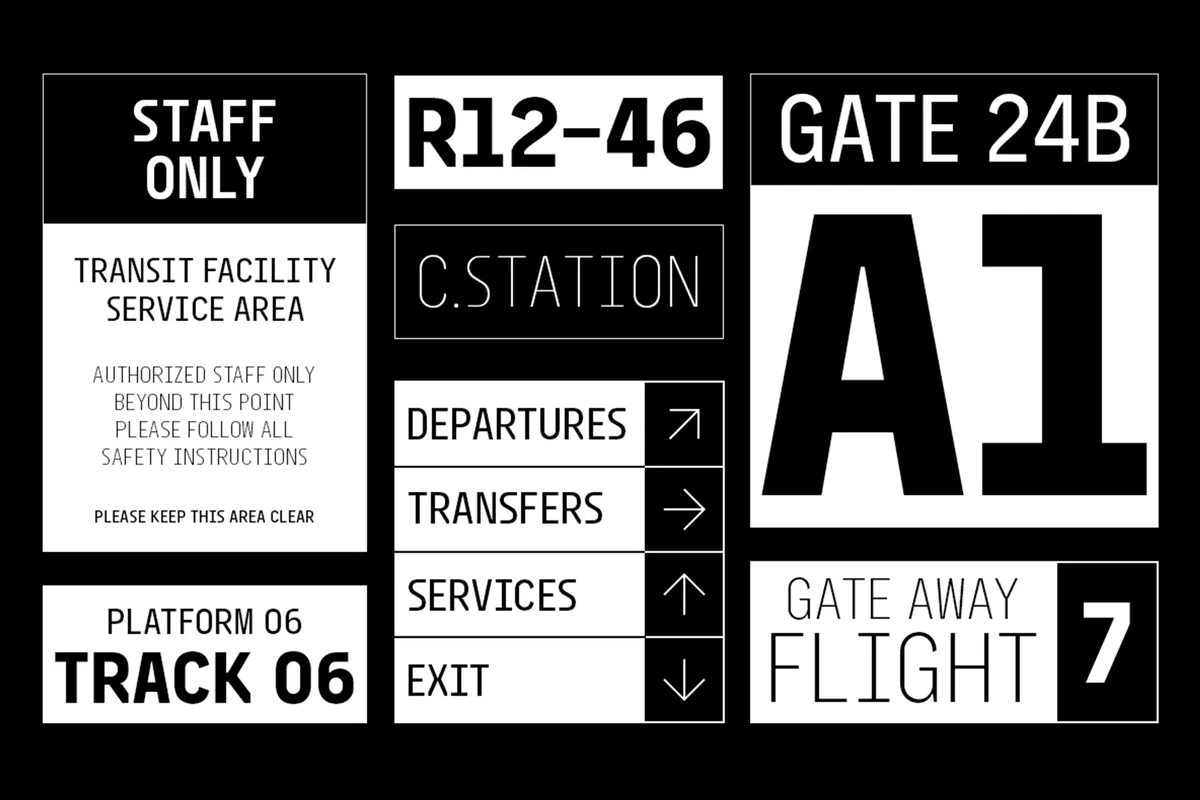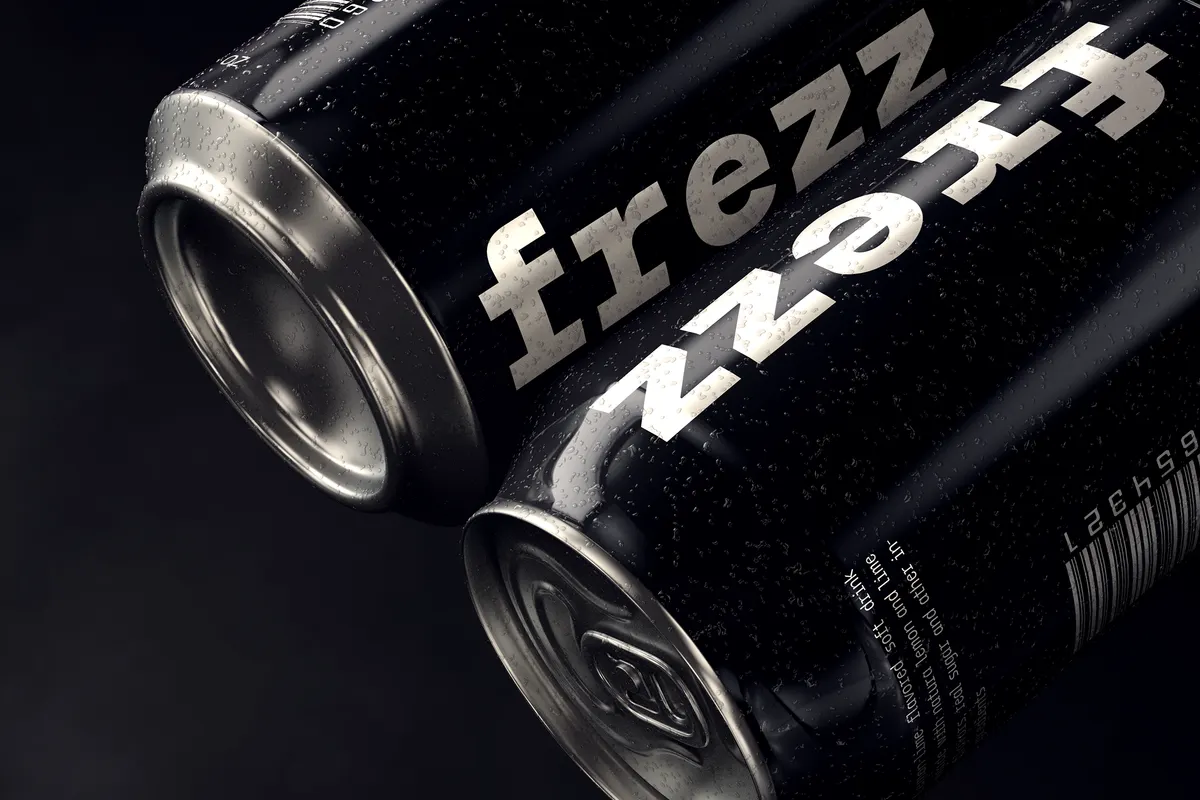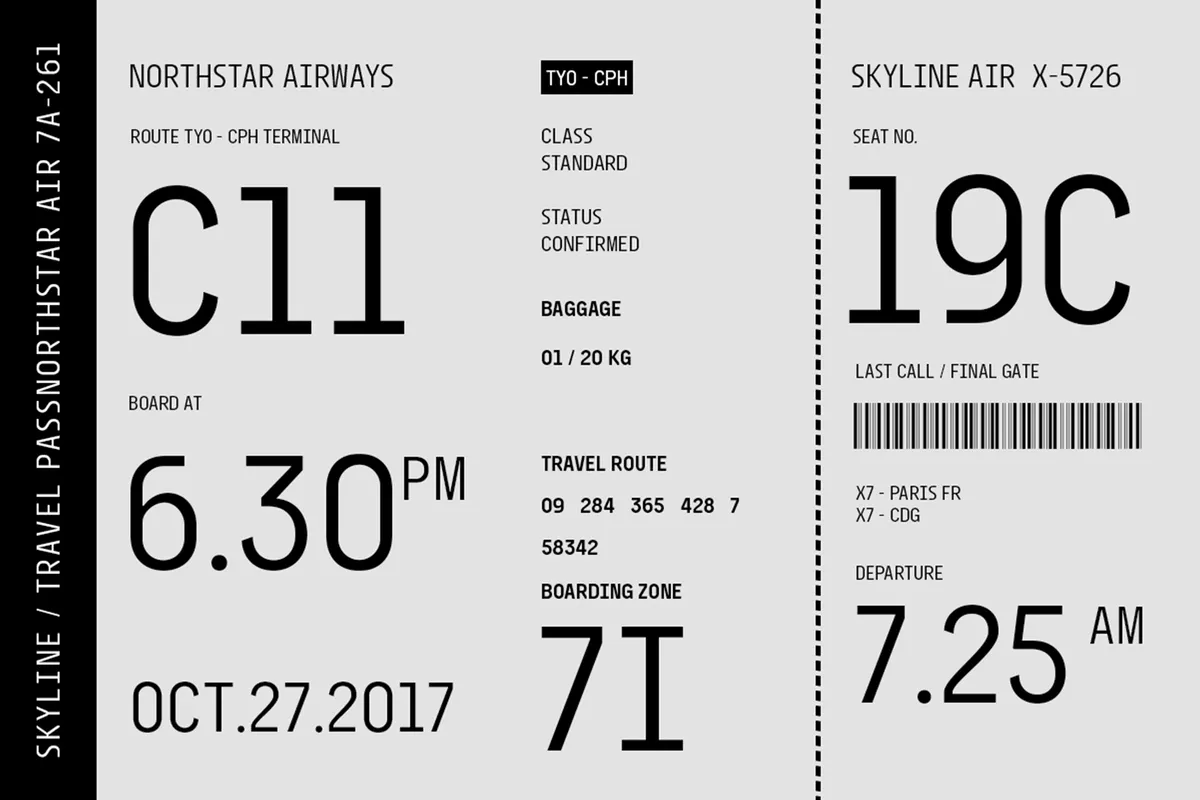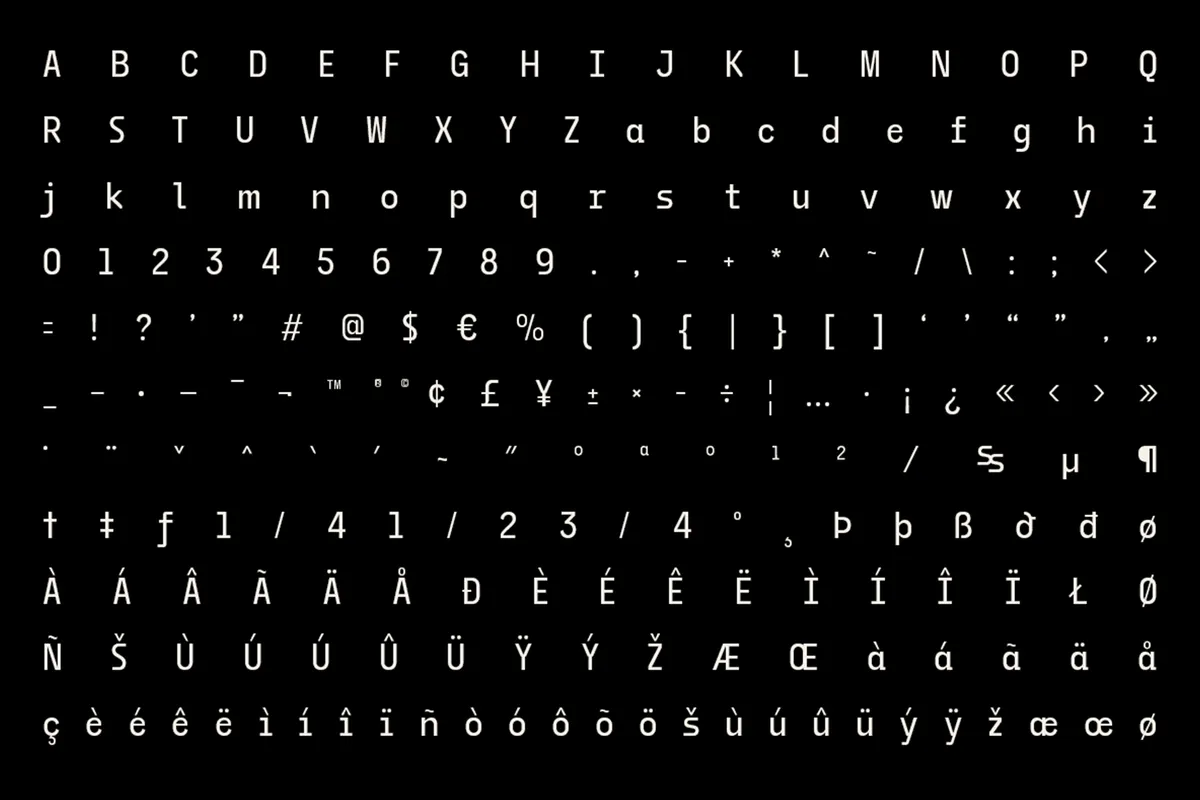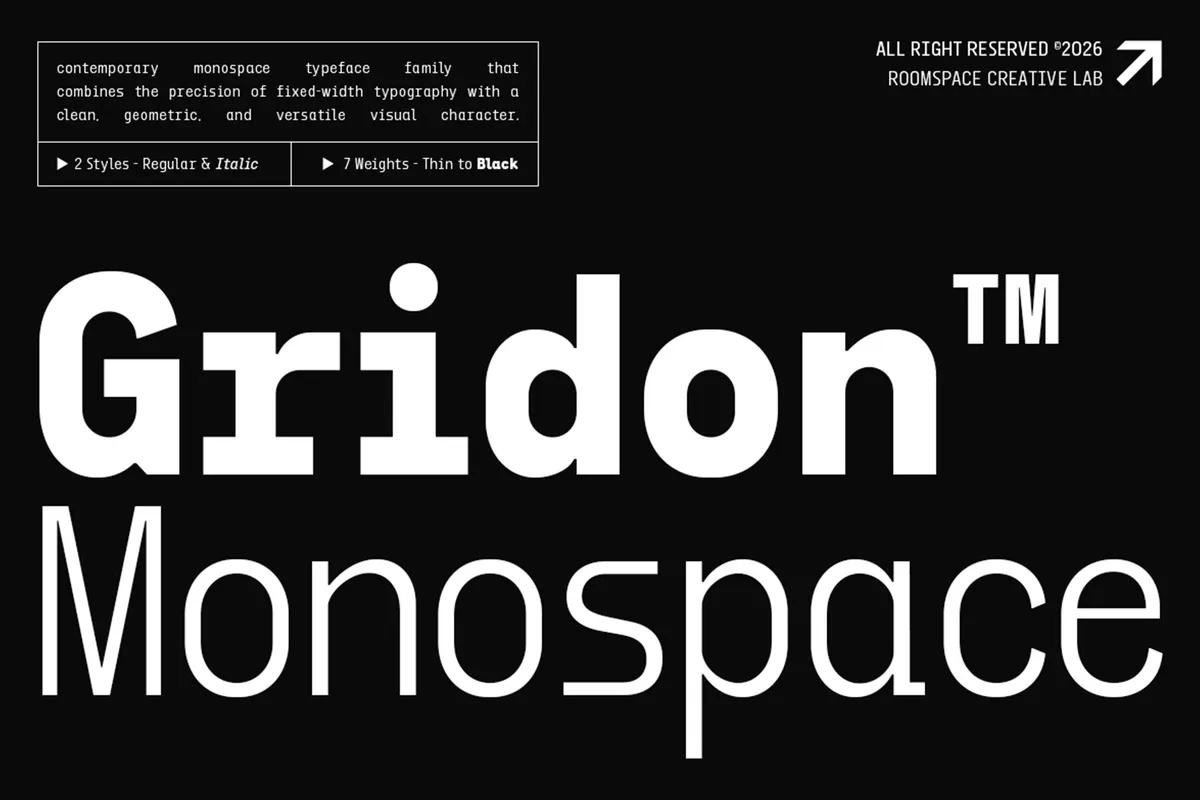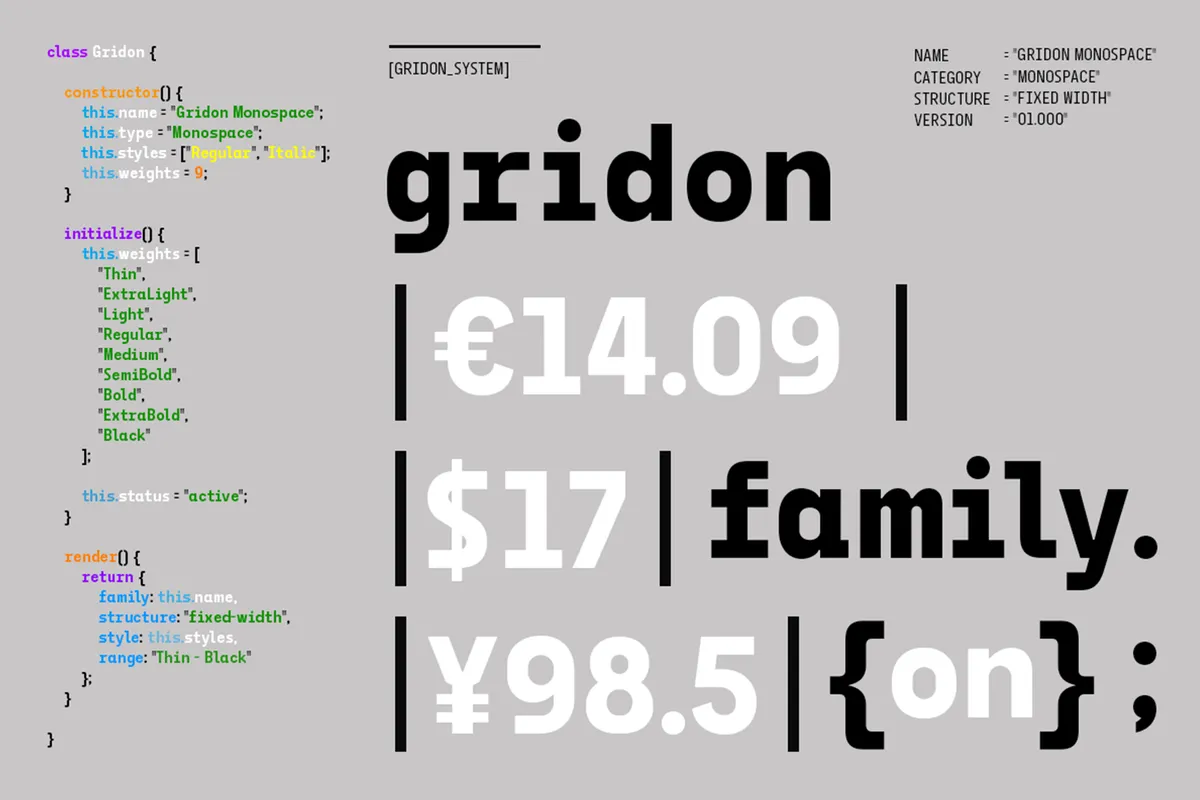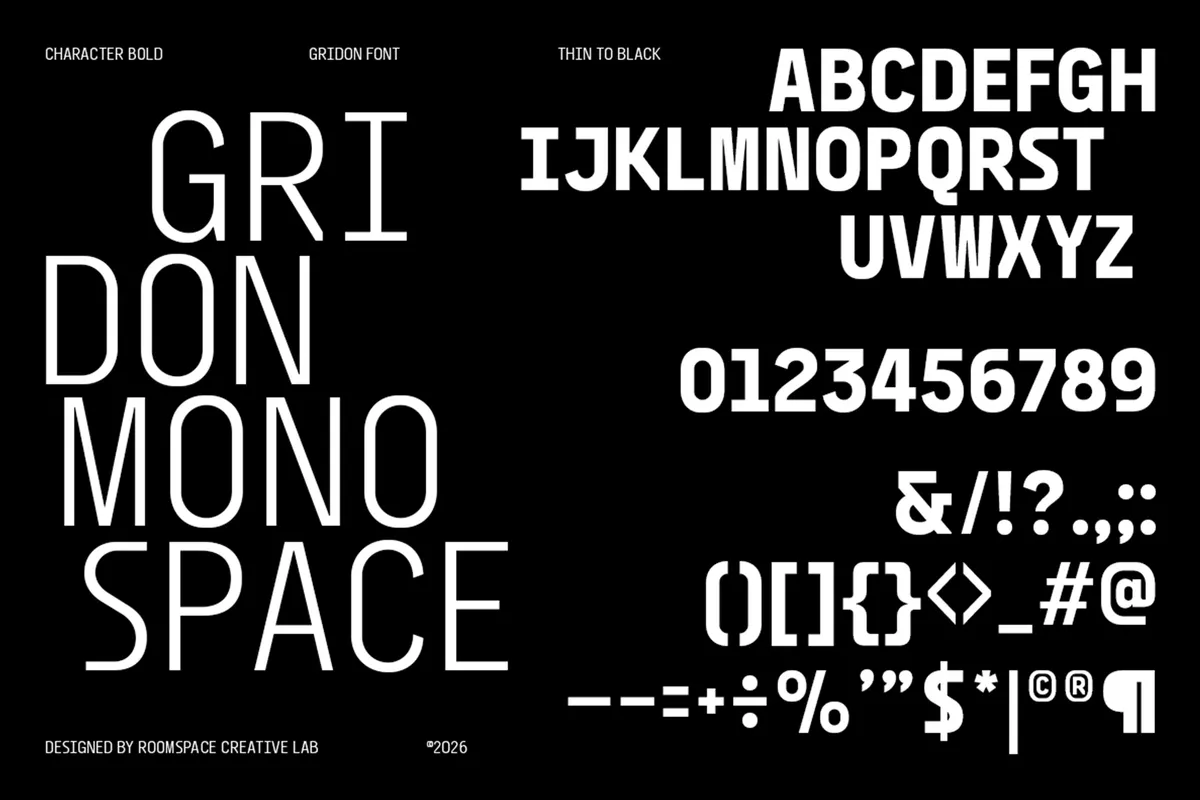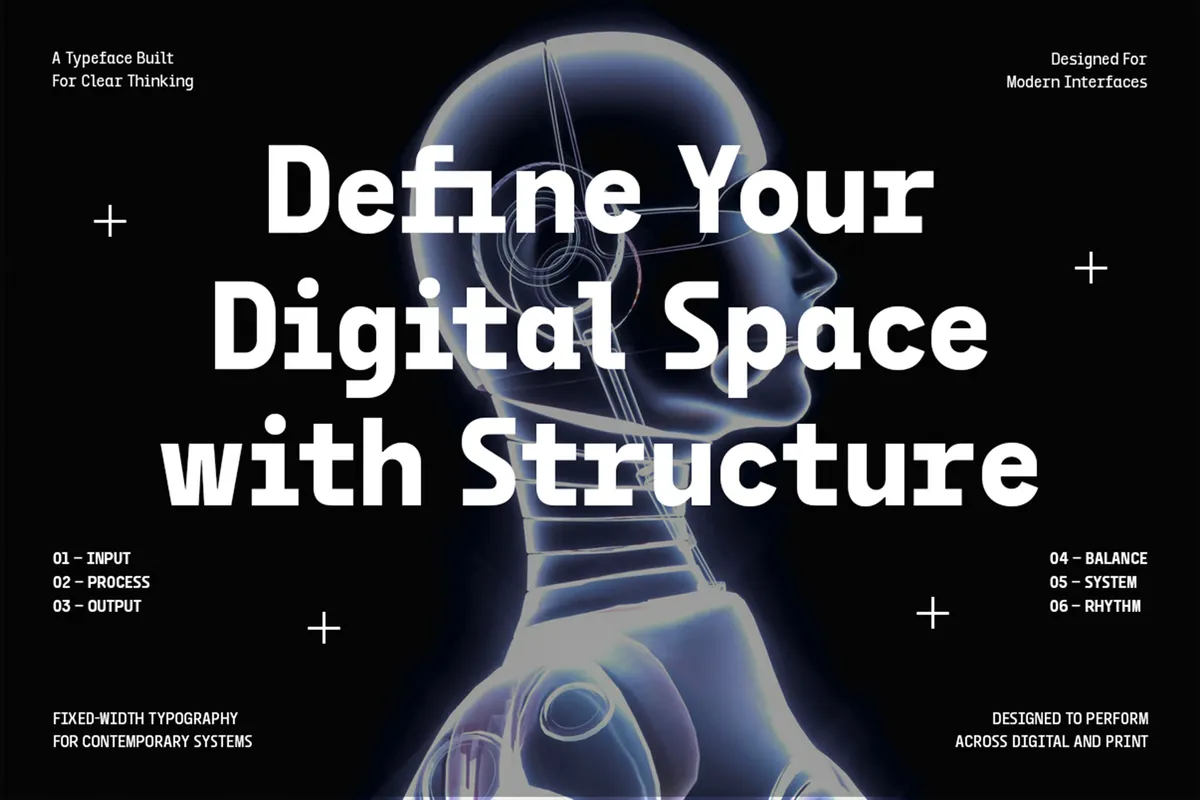
Gridon - Geometric Display Sans Font
Gridon builds a clean geometric sans with structured letterforms and even spacing, closer to a technical signage system than a general display face. Seven weights move from a hairline Thin through a solid Black, with a matching oblique style for every weight.
Use it for branding, editorial layouts, posters, packaging, signage, wayfinding, digital interfaces, and technology graphics.
- Uppercase & lowercase;
- Numerals, punctuation & symbols;
- 7 weights: Thin, ExtraLight, Light, Regular, Medium, Bold, Black;
- Matching oblique style for every weight;
- Extended Latin character set